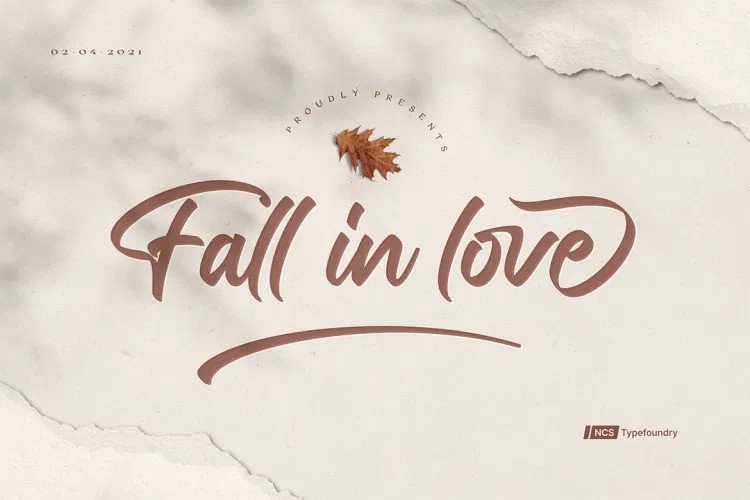
Fall in love Font
Fall in love Script Font is a cute brush typeface, created with additional bold on the strokes and mostly curved edges of the letterforms. Such as logotype, t shirt design, product packaging, stylish signature, business branding and promotional campagin. Add it to your most creative ideas and notice how it makes them come alive! Fall in love with its incredibly distinct and timeless style and use it to create spectacular designs!